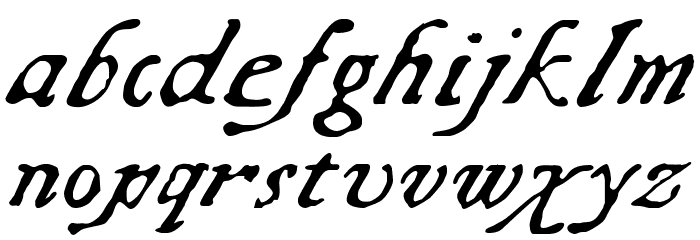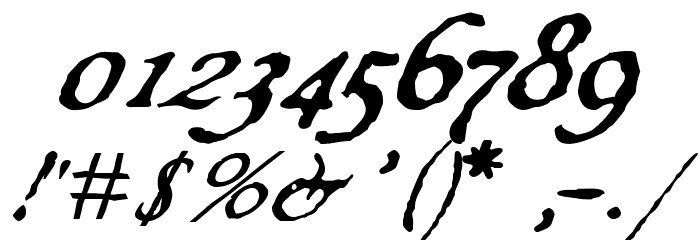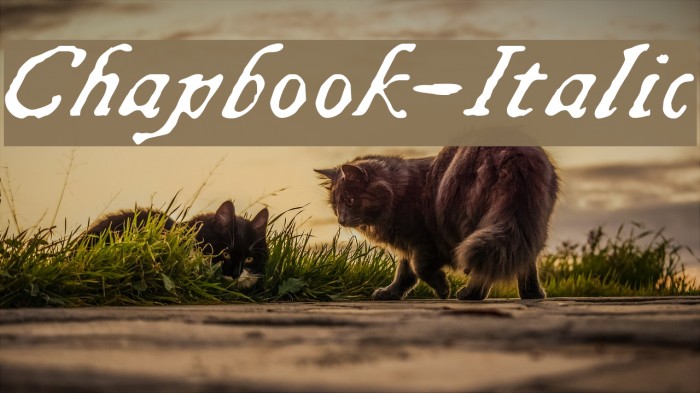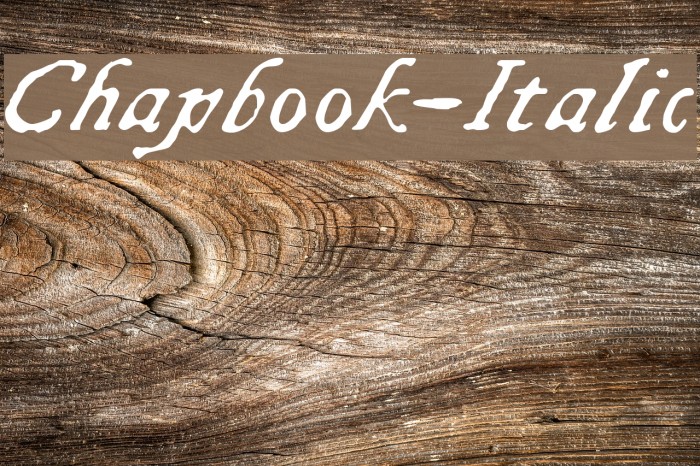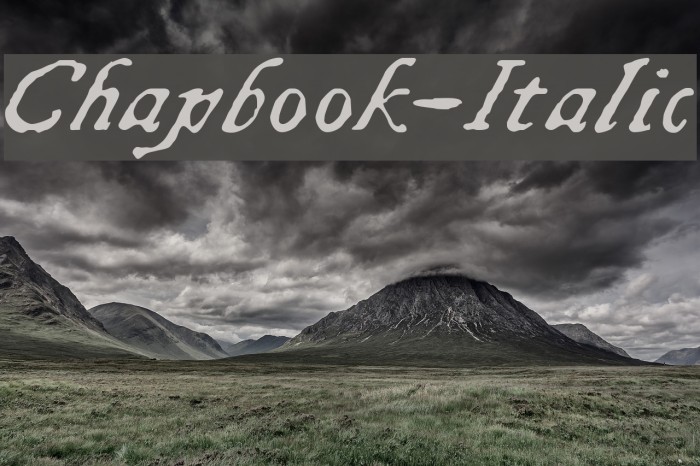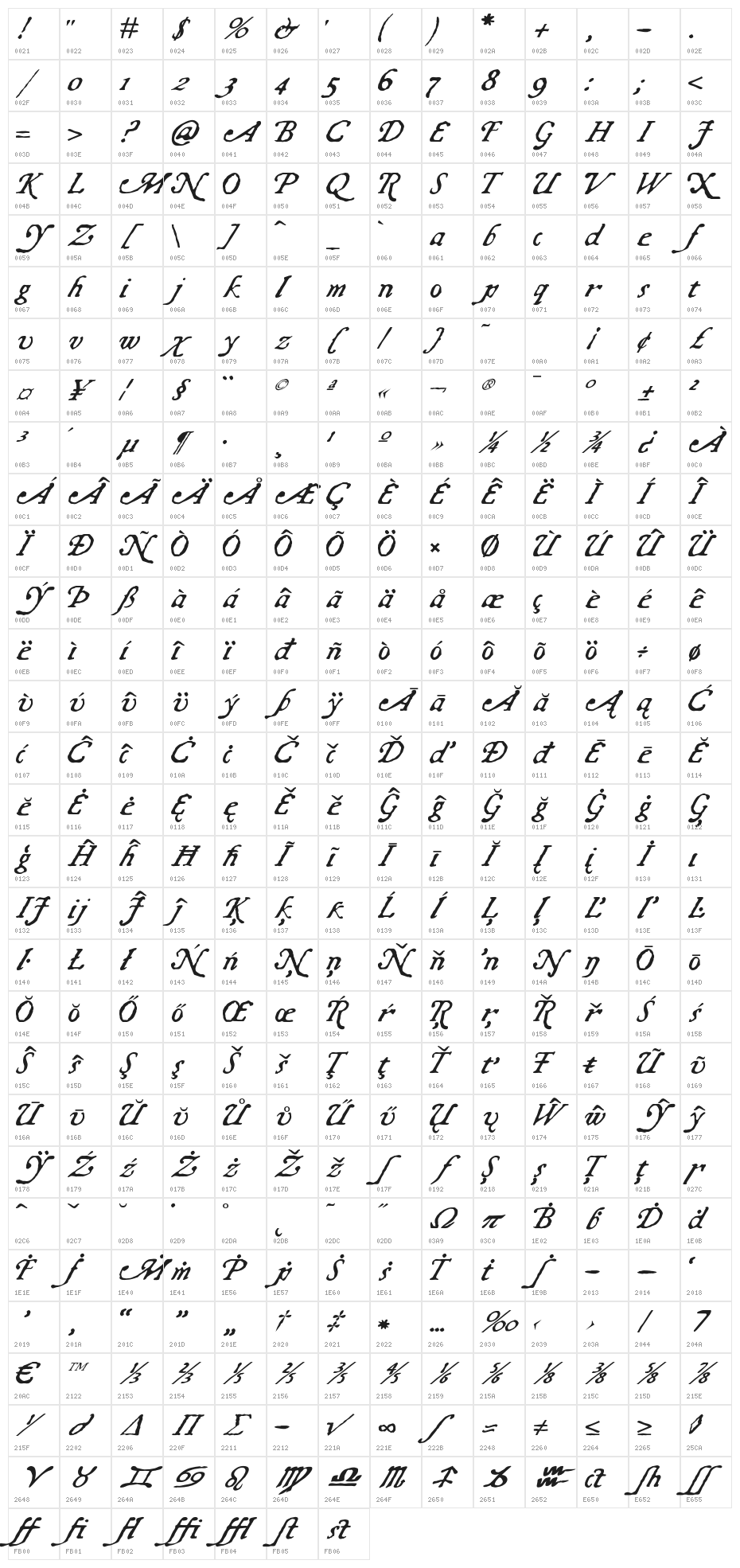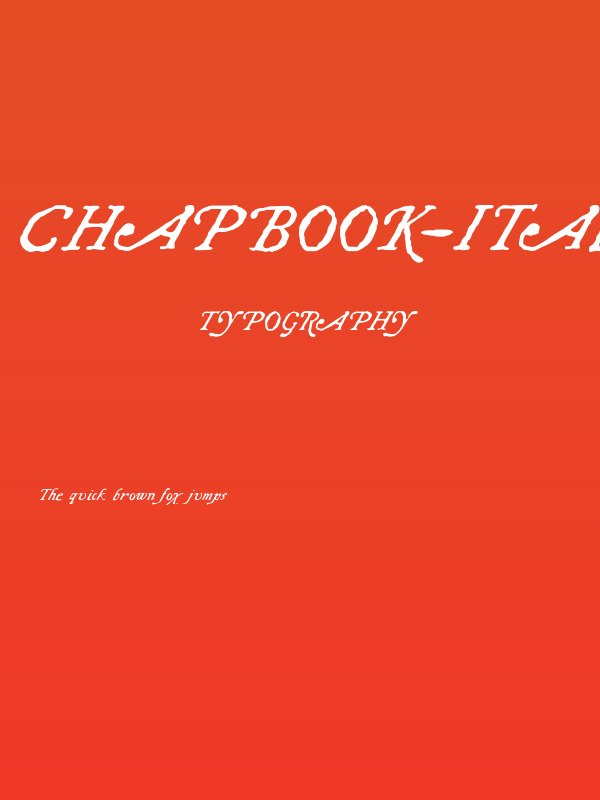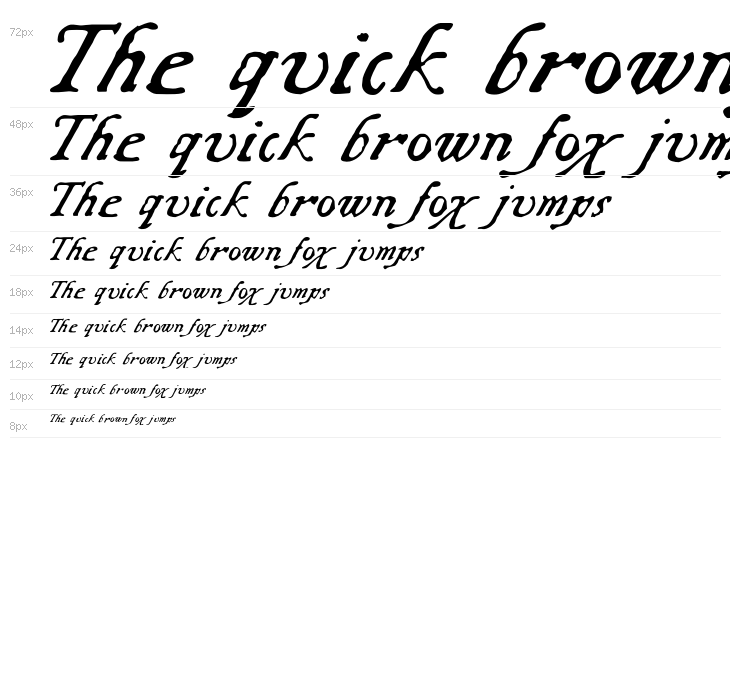
Chapbook-Italic Font
This font exudes a classic and elegant charm with its flowing, cursive style. The letters are intricately designed with a calligraphic influence, showcasing a beautiful blend of thick and thin strokes that create a dynamic visual rhythm. The uppercase letters are particularly ornate, featuring flourishes and loops that add a touch of sophistication. The lowercase letters maintain a consistent style, with smooth curves and a slight slant that enhances readability. The numerals are bold and distinct, complementing the overall aesthetic. Special characters are thoughtfully crafted, maintaining the font's cohesive look. This font is perfect for projects that require a touch of elegance and historical flair.
A classic, cursive font with elegant, calligraphic influences and dynamic stroke contrast.
- Proposed Projects: Ideal for wedding invitations, historical documents, elegant branding, and artistic posters.
- Overall Style: Classic
- Use Case: Headlines, Logos, Invitations